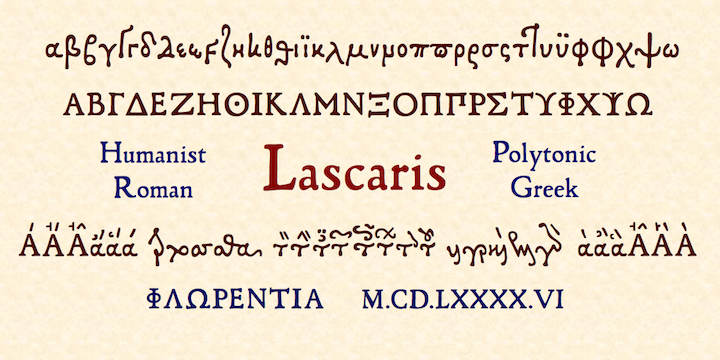
Lascaris Font is perfect for classical architecture firms, prestigious university materials, luxury heritage brands, ancient history publications, museum exhibition design, traditional law firm branding, cultural institution signage, academic conference materials, classical music programs, and distinguished scholarly publications.
What makes Lascaris Font exciting is its majestic classical elegance and timeless authority that evokes the grandeur of ancient civilizations and enduring intellectual traditions. This distinguished typeface features refined letterforms inspired by classical Roman inscriptions with perfect proportions and dignified character that command respect and admiration. The font's noble presence and scholarly sophistication make it essential for institutions and brands seeking to establish gravitas, tradition, and intellectual credibility in prestigious academic and cultural contexts.
The Lascaris Font family includes distinguished classical variations: Regular, Bold, Light, Medium, Italic, and Small Caps versions. Each style maintains the core classical aesthetic while providing different levels of formality and emphasis. The complete family offers designers comprehensive tools for creating authoritative, intellectually engaging visual communications that honor classical traditions while maintaining contemporary accessibility and professional standards.
When your project demands classical authority and scholarly distinction, Lascaris Font Free Download delivers unmatched prestige. This magnificent typeface transforms ordinary communications into distinguished statements that resonate with educated audiences appreciating tradition and excellence. Its timeless appeal makes it perfect for both ancient heritage applications and modern institutional branding. Download Lascaris Font today and establish classical authority with this remarkable typeface that perfectly captures Roman elegance, scholarly tradition, and enduring intellectual sophistication.